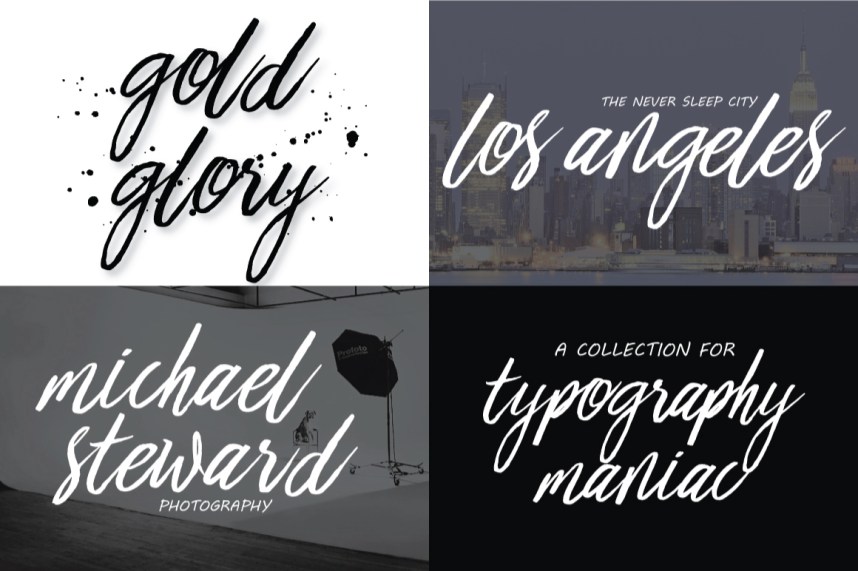
Crawling Flash Script Font
Crawling Flash Script Font the new brand typeface with personalities. Crawling Flash is perfect for weddings, invitations, greeting cards, quotations, posters, branding, business cards, stationary, title design, header blog, excerpts of art, the art of typography, letter envelopes modern or design books, occurred styles such as design handdrawn, title , letter marriage, pop vintage design, or purpose to make the project / art design we look beautiful and trendy.